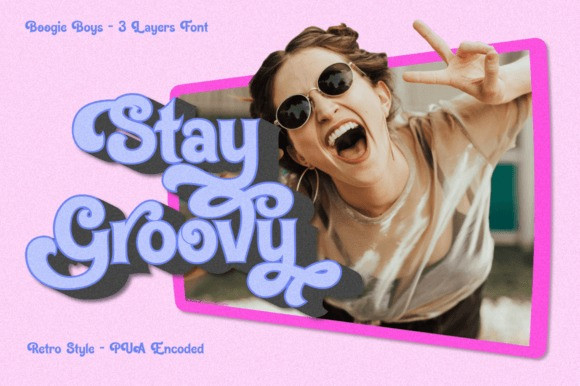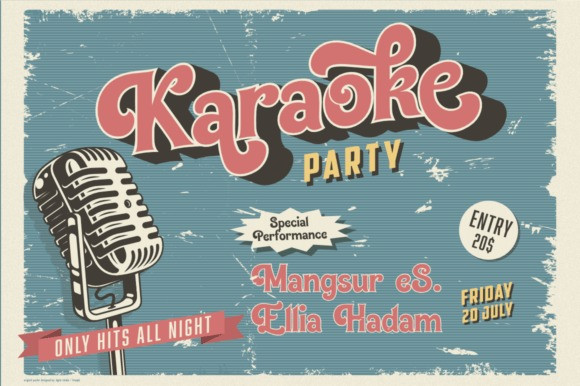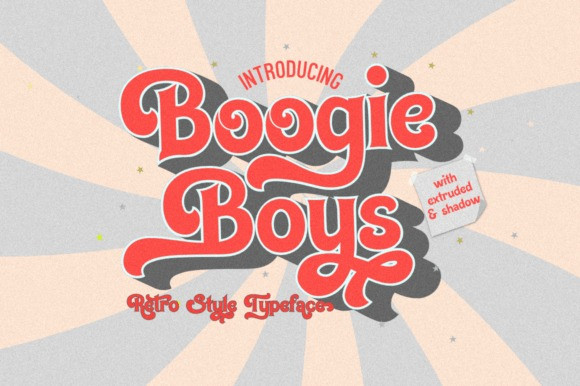
Boogie Boys Font
Boogie Boys Retro Font is a retro-styled display font, based on a serif combined with dynamic swashes, making it a stylish and expressive font.
This font has three layers, making it easy to use when you want a 3D effect. Its playfulness makes it great for creative projects, be it inspirational wall posters, t-shirts, stickers or brand identity.